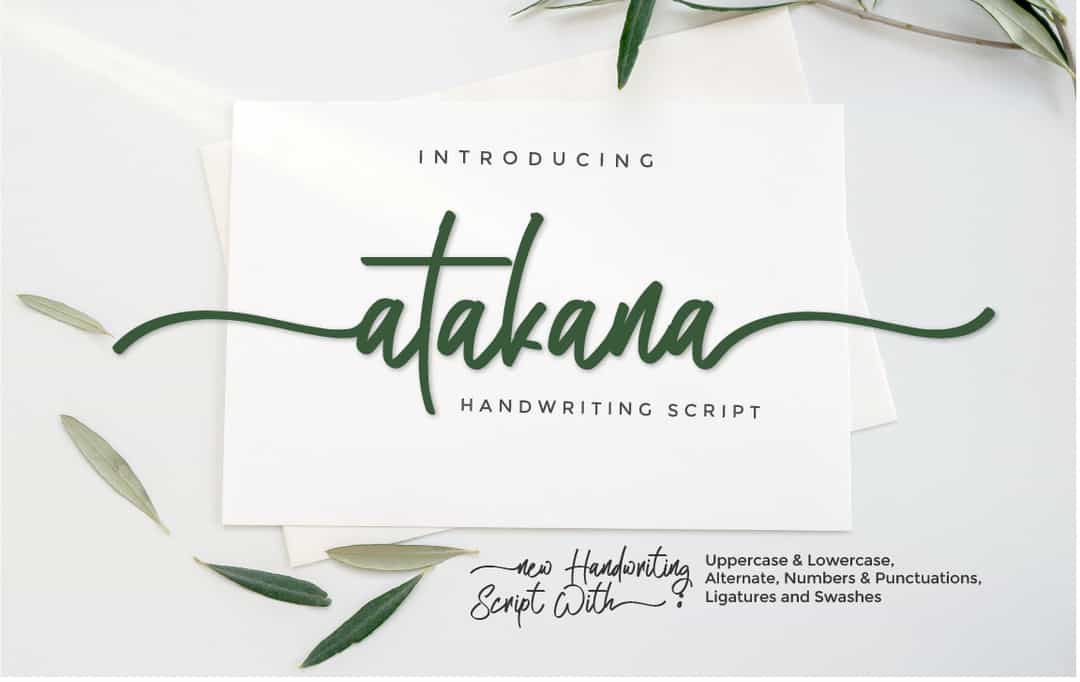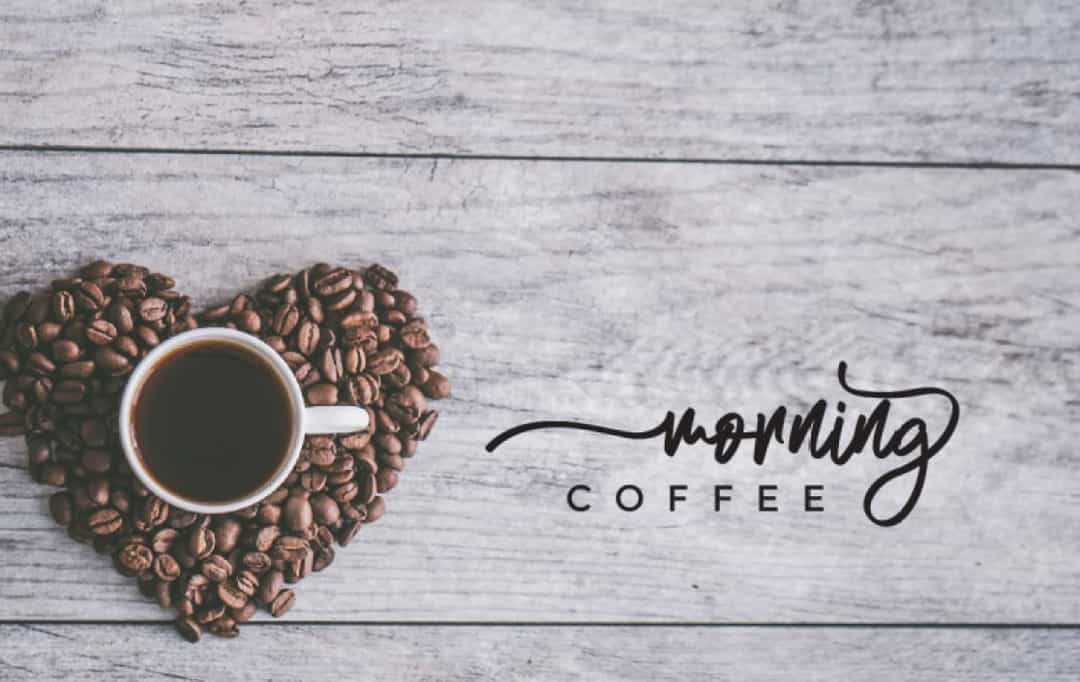
Atakana is a fresh and lively handwriting font that was designed with passion recently. This font is suitable for branding your design needs, such as: weddings invitations, romantic projects, logos for studios and brands, invitations to events, branding of social networks, clothes, posters, signs for cafes and restaurants and more.